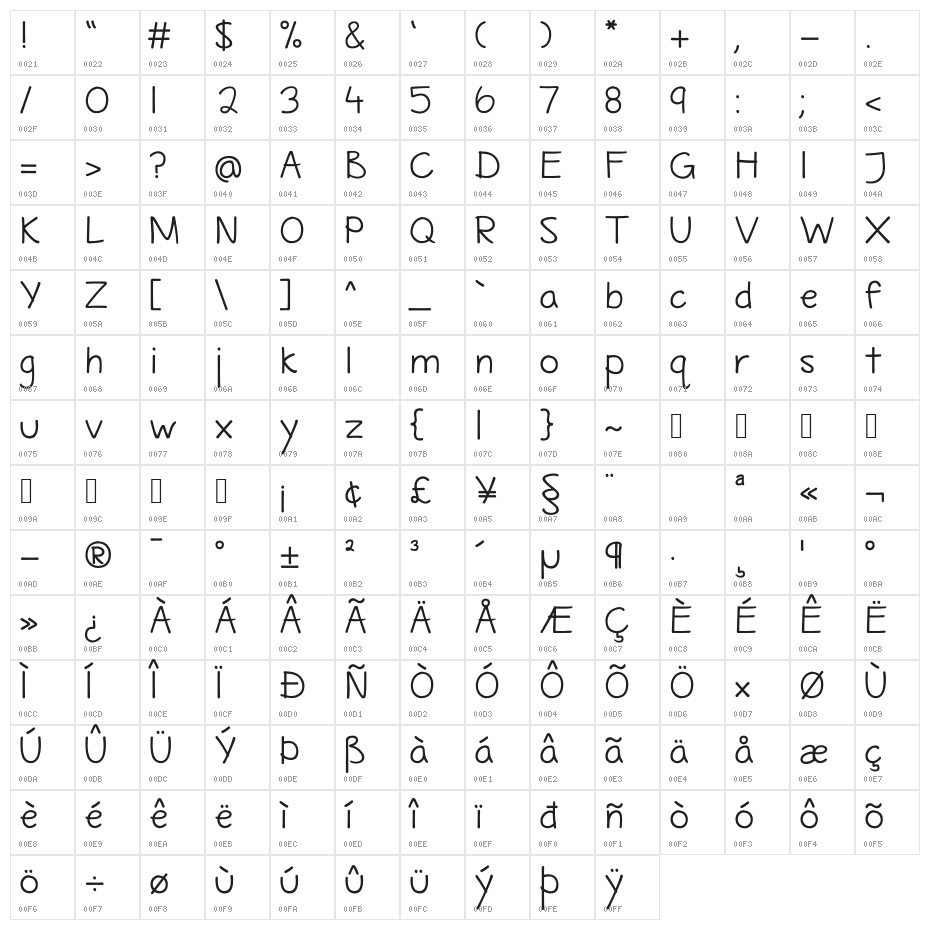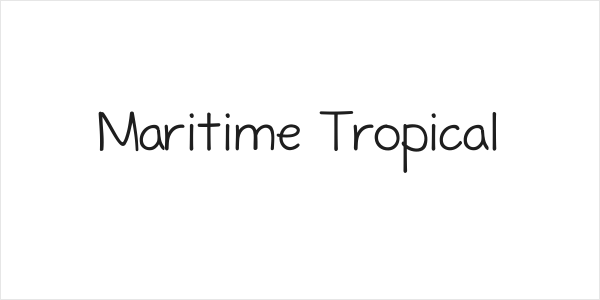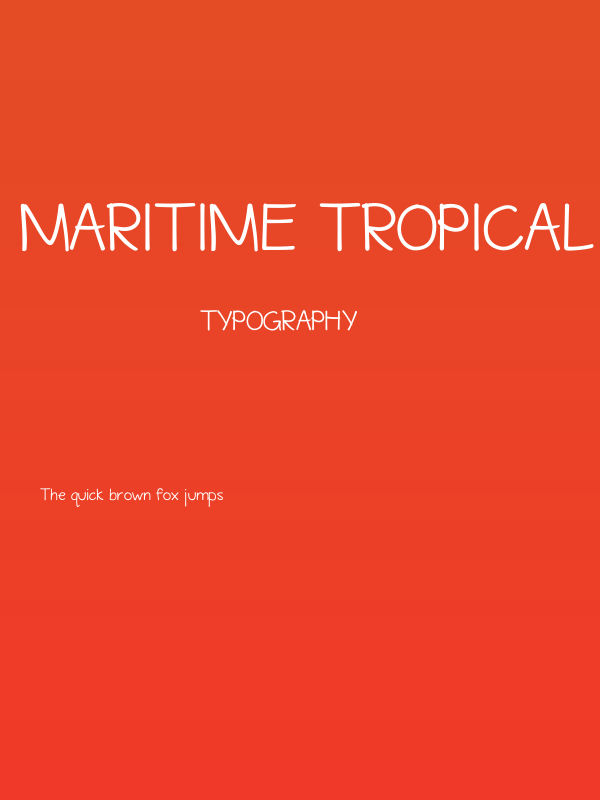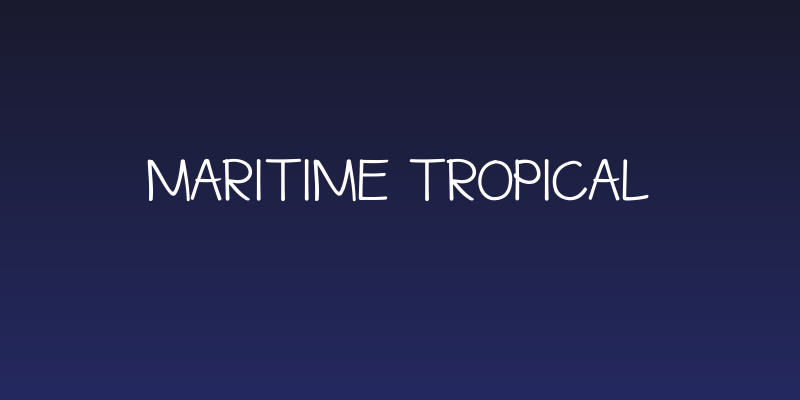
Maritime Tropical Font
Maritime Tropical Description
This font features a playful and casual handwritten style with smooth, rounded edges and a consistent stroke width. The characters are evenly spaced, providing a clean and approachable appearance. The uppercase letters maintain a uniform height, while the lowercase letters exhibit a slight variation in height, adding to the informal charm. The numerals are clear and legible, matching the overall style of the alphabet. Special characters are included, maintaining the same playful aesthetic. This font is ideal for projects that require a friendly and inviting tone.
| Proposed Projects | Ideal for children's books, greeting cards, casual branding, and social media graphics. |